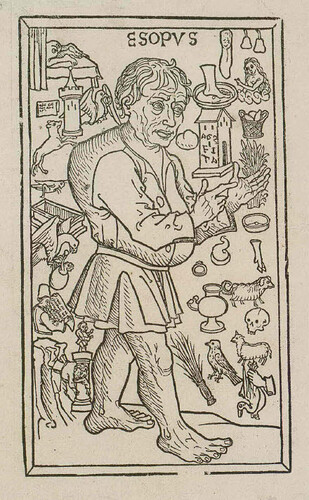
This is a group of symbol fonts which trace the life and times of Aesop of Fable Fame.
The first font is an overview of Aesop’s life while the others illustrate his moral lessons.
The illustrations come from the second Augsburg edition of the Fables of Aesop, translated from Latin into German by Heinrich Steinhöwel in 1479. It is illustrated with 208 woodcuts, cut in the Augsburg style, which is characterized by thick contour lines outlining the figures, a reliance on white space rather than highly detailed embellishment to decorate the image, and little background or landscape to create perspective.
The publishing history of the Fables is extensive. Over 150 separate editions were printed between 1465 and 1501. Little is known of Aesop’s life, but he is believed to have been a slave who lived during the sixth century BC. He himself did not write down the fables. They became part of the oral tradition of storytelling and were eventually recorded by his contemporaries. The uncomplicated moral lessons that are related in Aesop’s Fables have captured the imagination of generations of artists, who have used his stories as a way to teach moral lessons to children of all cultures and nationalities.